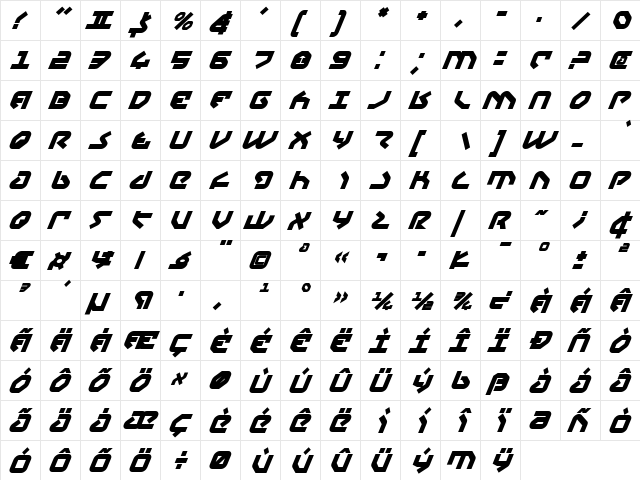
Yahren Bold Italic Bold Italic
Design Context for Yahren Bold Italic Typeface
Yahren Bold Italic is a composed and adaptable typeface that performs quietly and consistently across a wide range of design contexts. Its italic angle brings a sense of urgency and motion to the letterforms. Its bold stroke weight gives it real presence on the page.
Pro Tip: Use Yahren Bold Italic for emphasis, pull quotes, and subheadings where its slanted energy can add rhythm to the layout.